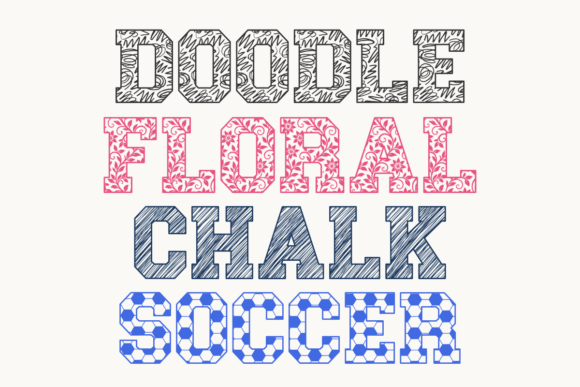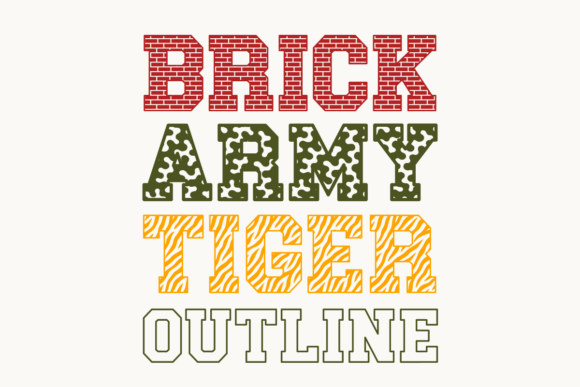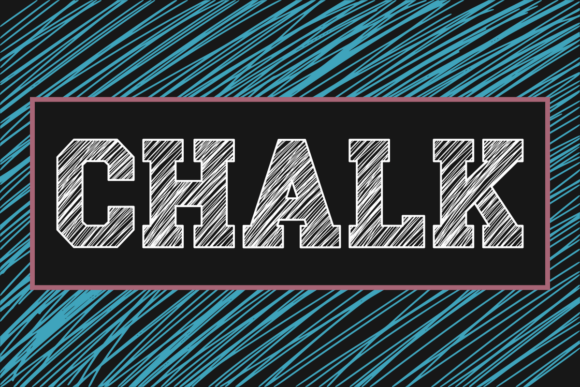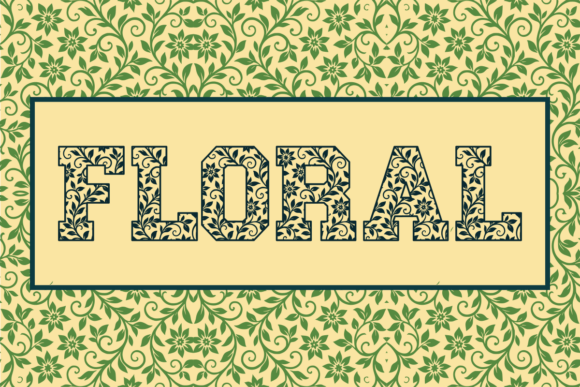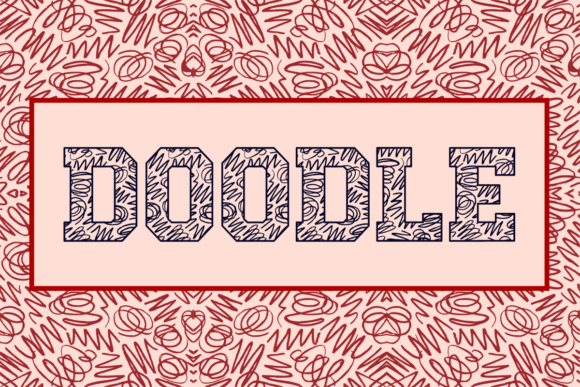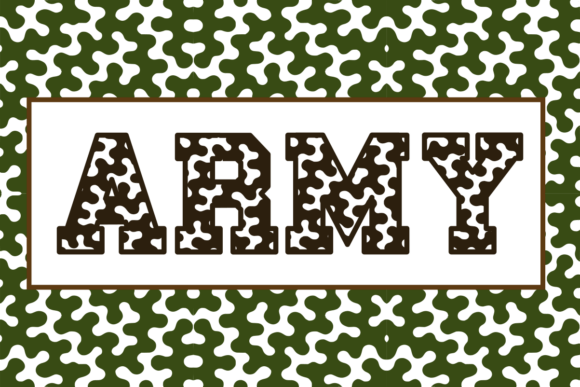
Introducing Champs Squad Font: The Ultimate Varsity Style Font Collection
Are you a designer, crafter, or educator looking for a font that combines classic varsity style with a unique decorative touch? Look no further than Champs Squad Font, a comprehensive font collection bundle that includes 8 distinct font styles. Each font style is carefully crafted to blend traditional varsity characters with fun patterns and textures, making it perfect for a wide range of design projects.
What’s Included in Champs Squad Font?
With Champs Squad Font, you’ll receive 8 varsity-style font styles, each with its own unique decorative textures and patterns. The font styles include:
• Doodle: A playful font with a doodle-inspired texture, perfect for creating fun and quirky designs.
• Floral: A beautiful font with a floral pattern, ideal for creating elegant and sophisticated designs.
• Chalk: A classic font with a chalk-inspired texture, great for creating designs that resemble handwritten chalkboard work.
• Soccer: A sporty font with a soccer-themed texture, perfect for creating designs for soccer teams, tournaments, or events.
• Brick: A sturdy font with a brick-inspired texture, great for creating designs that require a strong, rugged look.
• Army: A bold font with an army-inspired texture, ideal for creating designs that require a strong, edgy look.
• Tiger: A fierce font with a tiger-inspired texture, perfect for creating designs that require a bold, adventurous look.
• Outline: A sleek font with an outlined texture, great for creating designs that require a clean, modern look.
Champs Squad Font is versatile and can be used for a variety of design projects, including:
• Team t-shirts: Create custom team t-shirts with varsity-style designs that are sure to impress.
• School posters: Design eye-catching posters for school events, sports teams, or clubs.
• Stickers: Create custom stickers for school supplies, laptops, or water bottles.
• Cricut/Silhouette projects: Use Champs Squad Font with your Cricut or Silhouette machine to create custom vinyl decals, iron-on designs, or paper crafts.
• Educational designs: Create engaging educational materials, such as worksheets, activity sheets, or classroom decorations.
Why Choose Champs Squad Font?
Champs Squad Font offers a unique combination of classic varsity style and decorative textures, making it an excellent choice for designers, crafters, and educators. Here are just a few reasons why you should choose Champs Squad Font:
• Fresh and classic look: Champs Squad Font offers a fresh take on classic varsity style, making it perfect for designers who want to create modern, yet nostalgic designs.
• Versatile: With 8 font styles to choose from, you’re sure to find the perfect font for your design project.
• High-quality design: Each font style is carefully crafted to ensure high-quality design and readability.
Get Ready to Elevate Your Designs with Champs Squad Font
Whether you’re a designer, crafter, or educator, Champs Squad Font is the perfect addition to your font collection. With its unique blend of classic varsity style and decorative textures, you’re sure to create designs that stand out from the crowd. So why wait? Download Champs Squad Font today and get ready to elevate your designs to the next level!